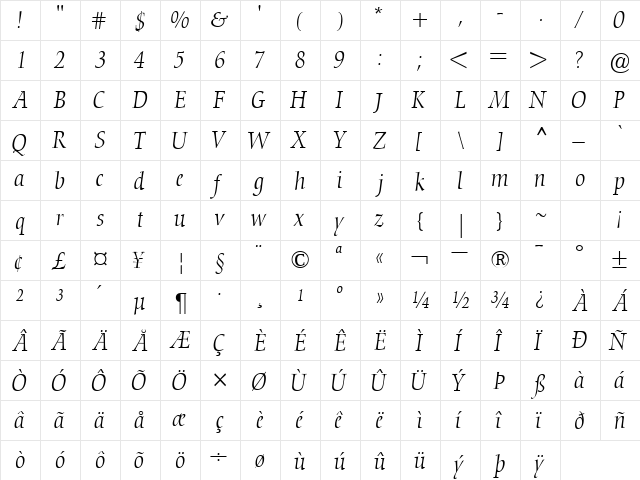
ConquistaLightSSK Italic Font Preview
Design Context for ConquistaLightSSK Typeface
ConquistaLightSSK takes a measured approach to typography — its balanced proportions and neutral character make it a reliable workhorse for both digital and print work. Its italic angle brings a sense of urgency and motion to the letterforms. The delicate stroke weight brings airiness and refinement to layouts.